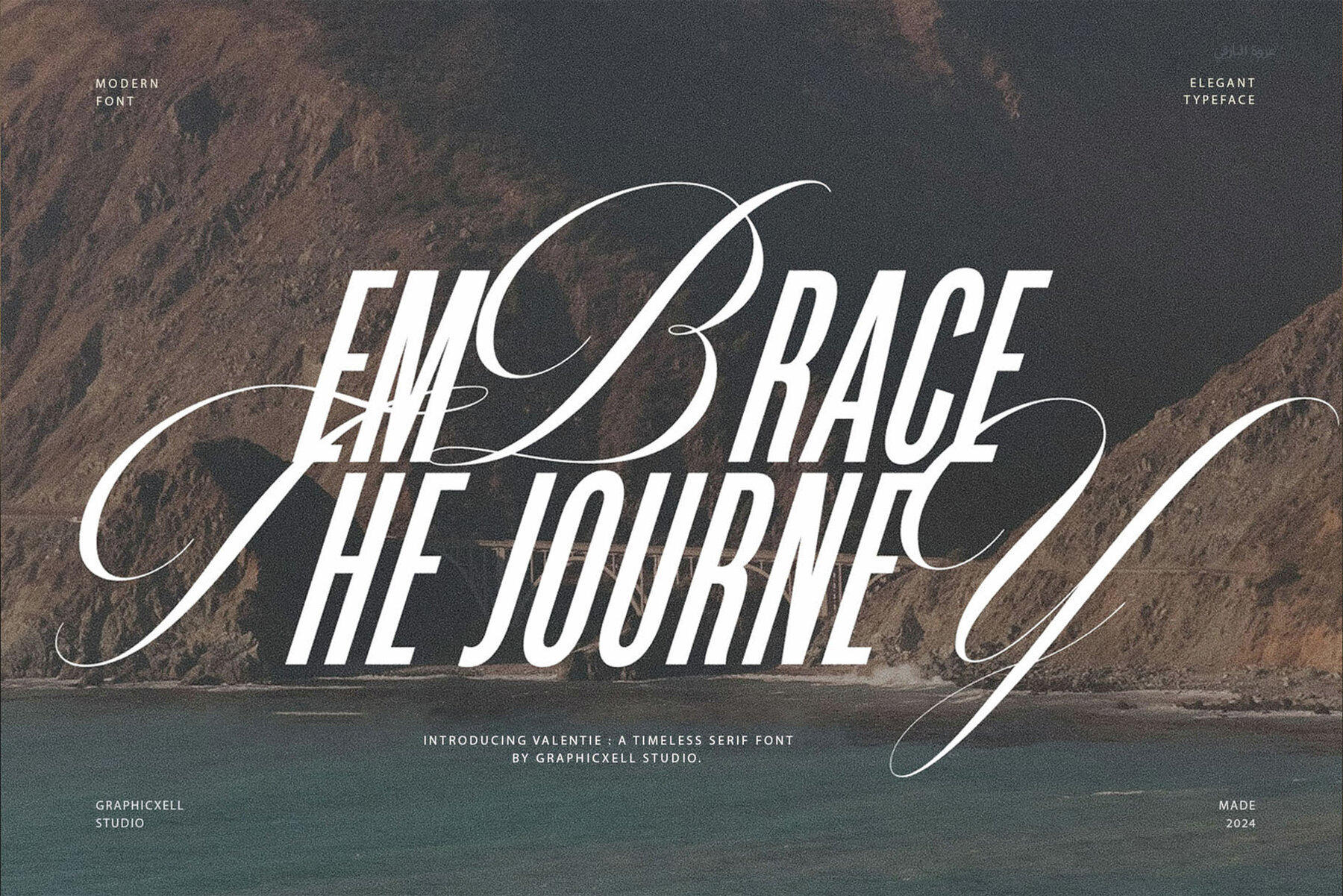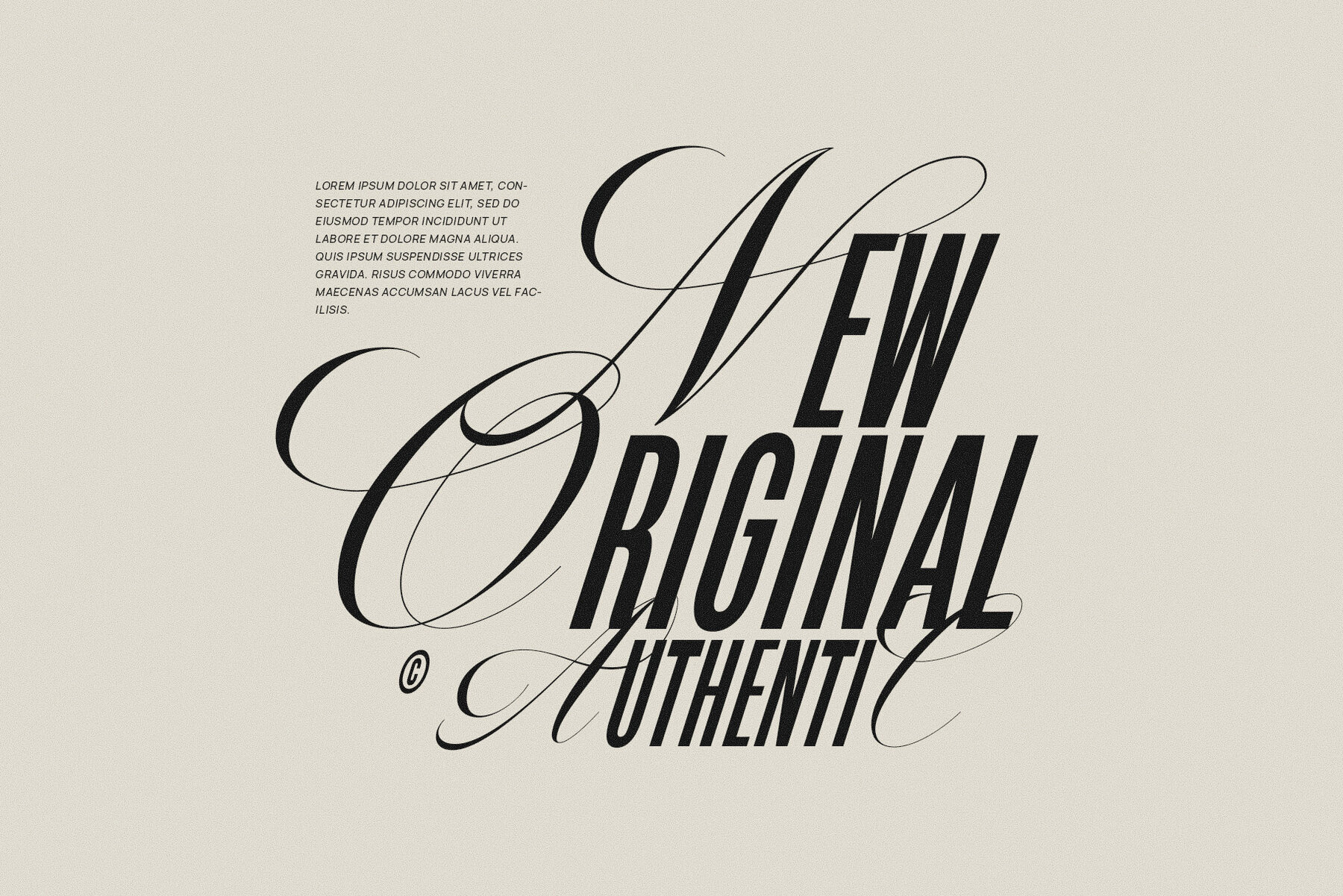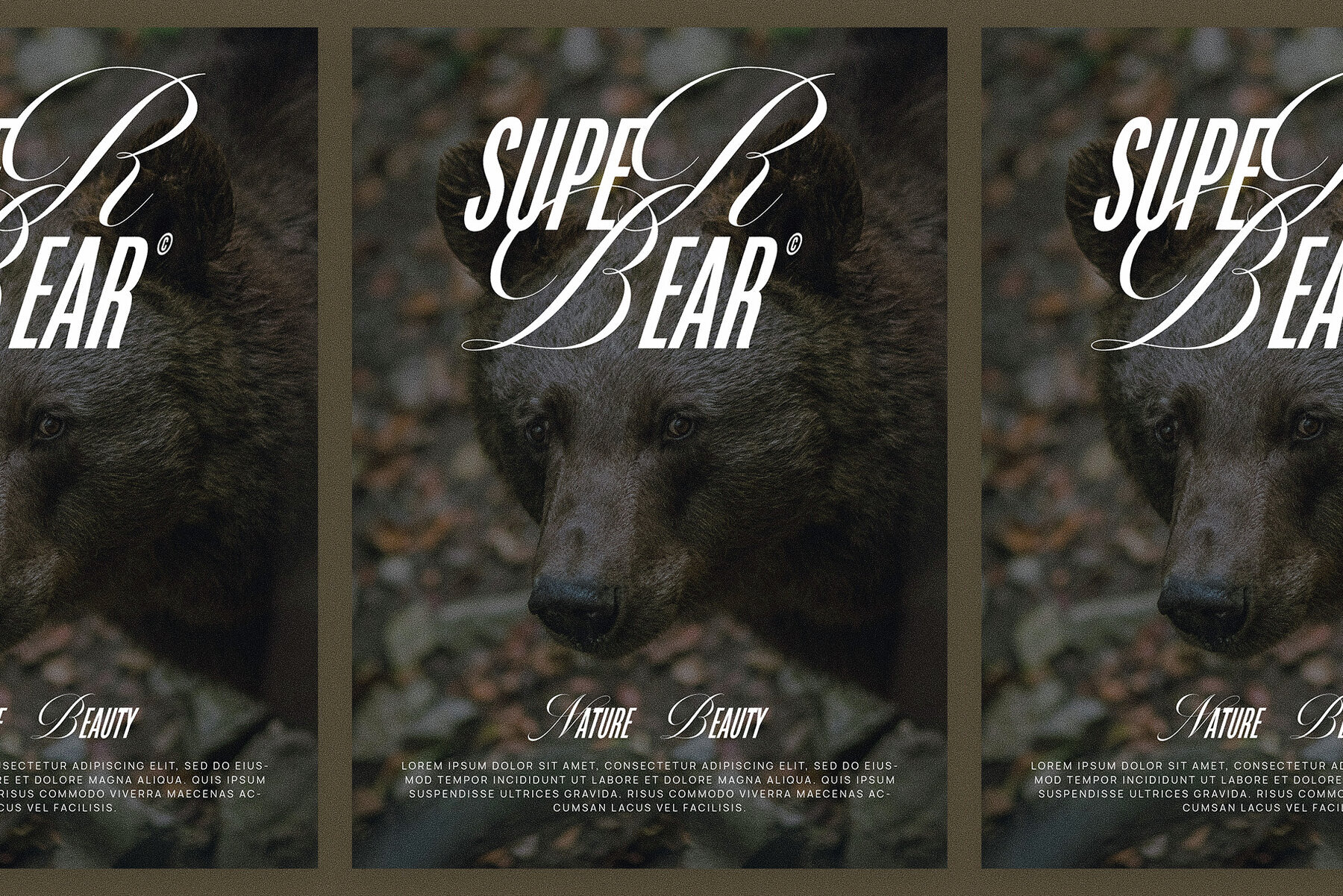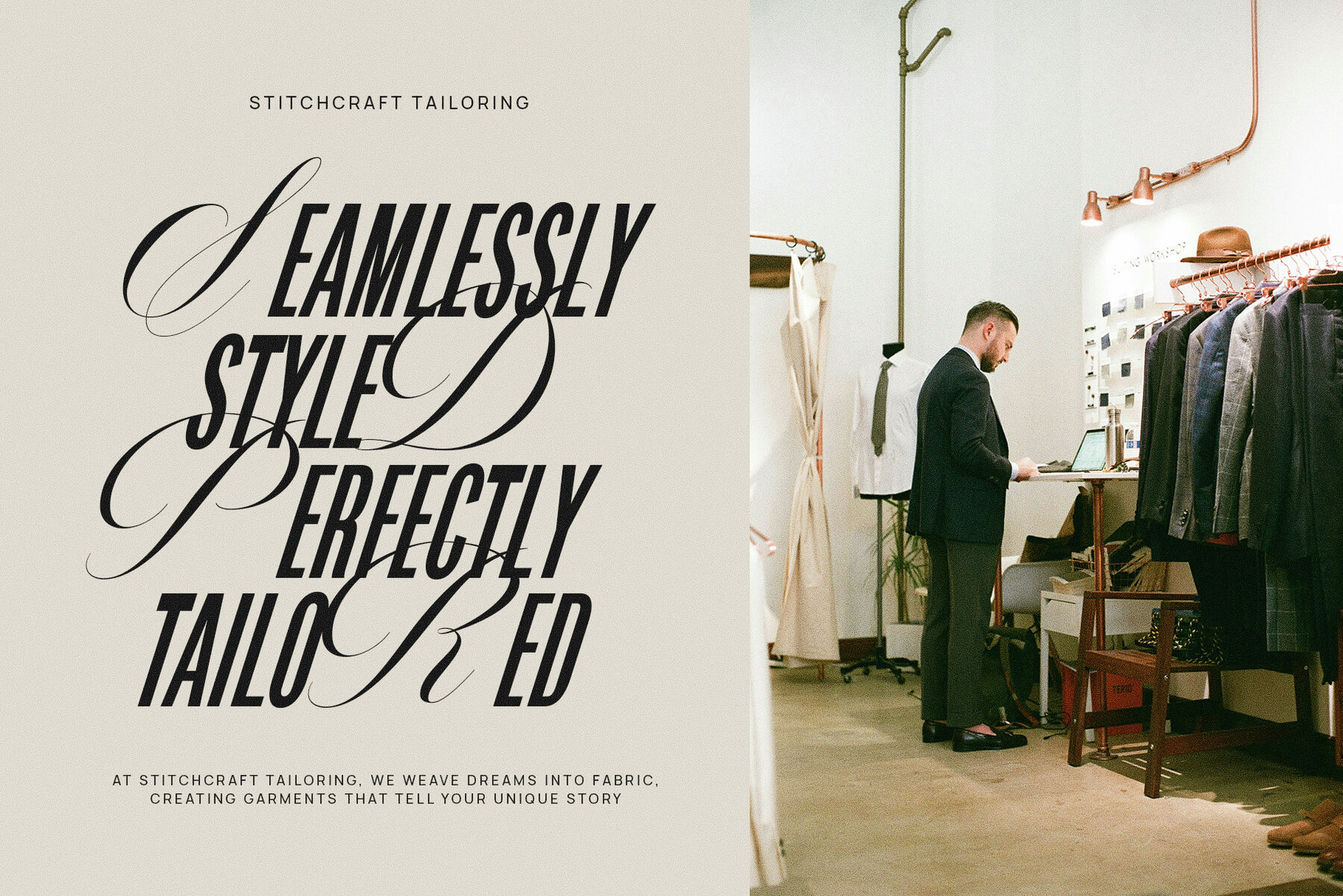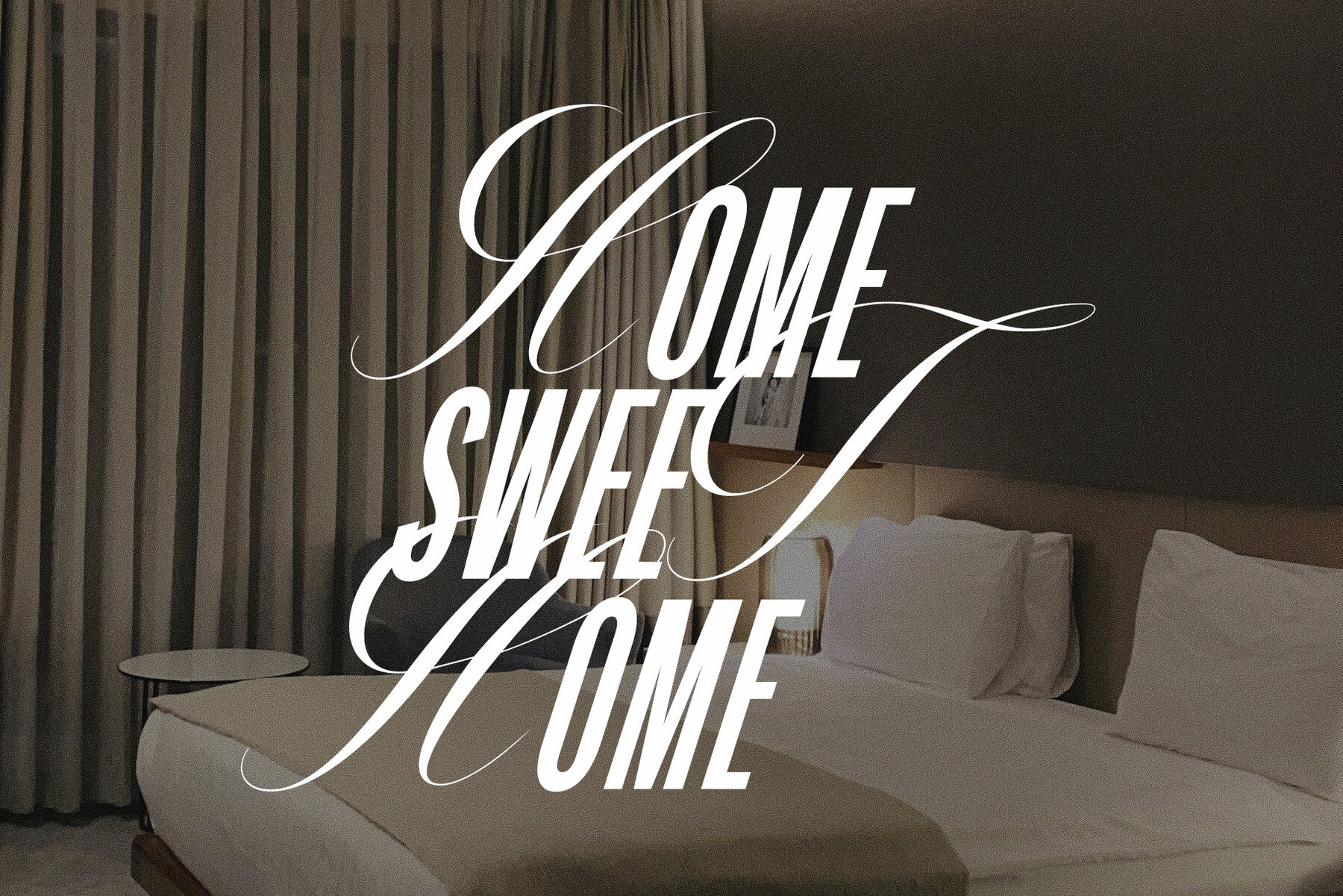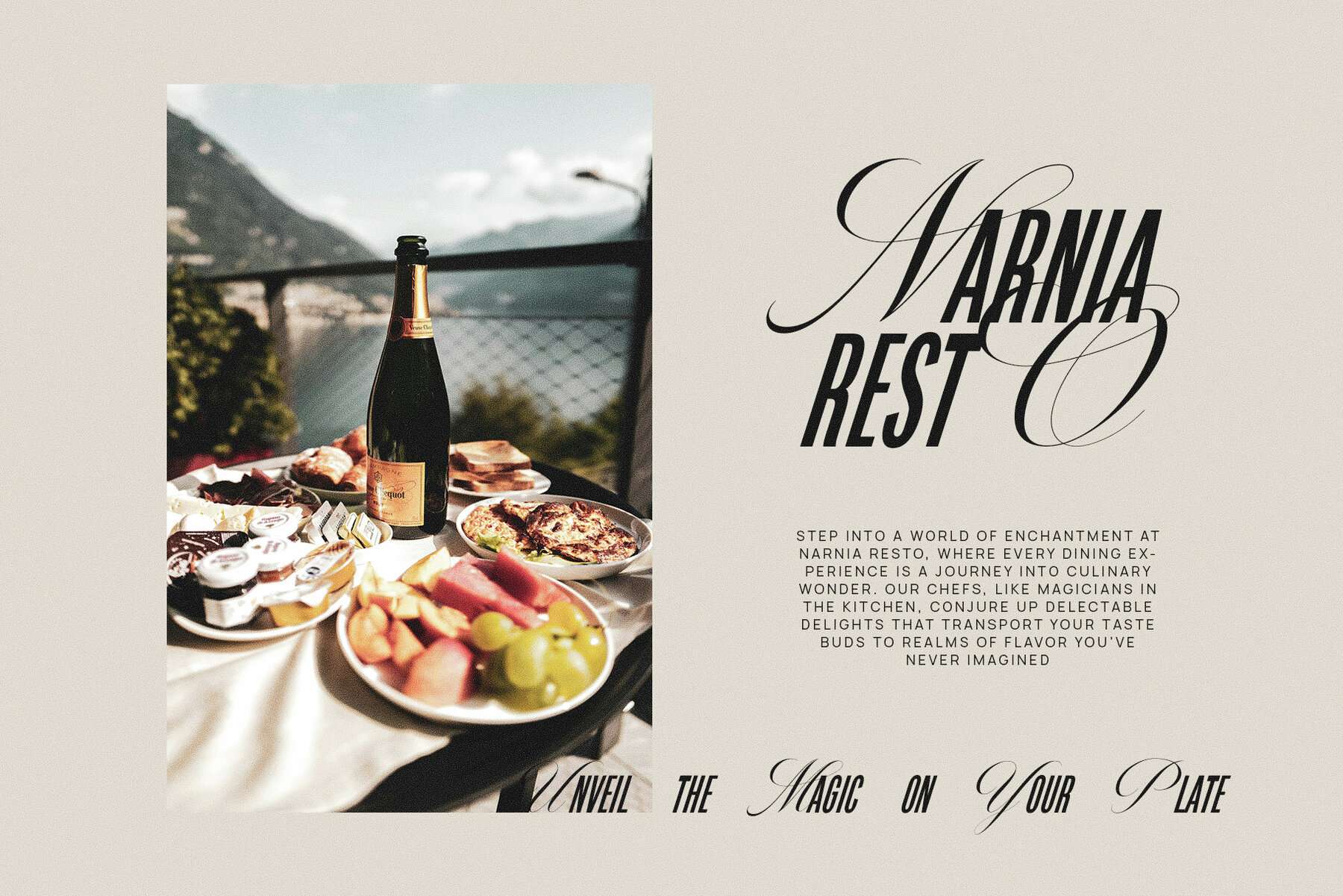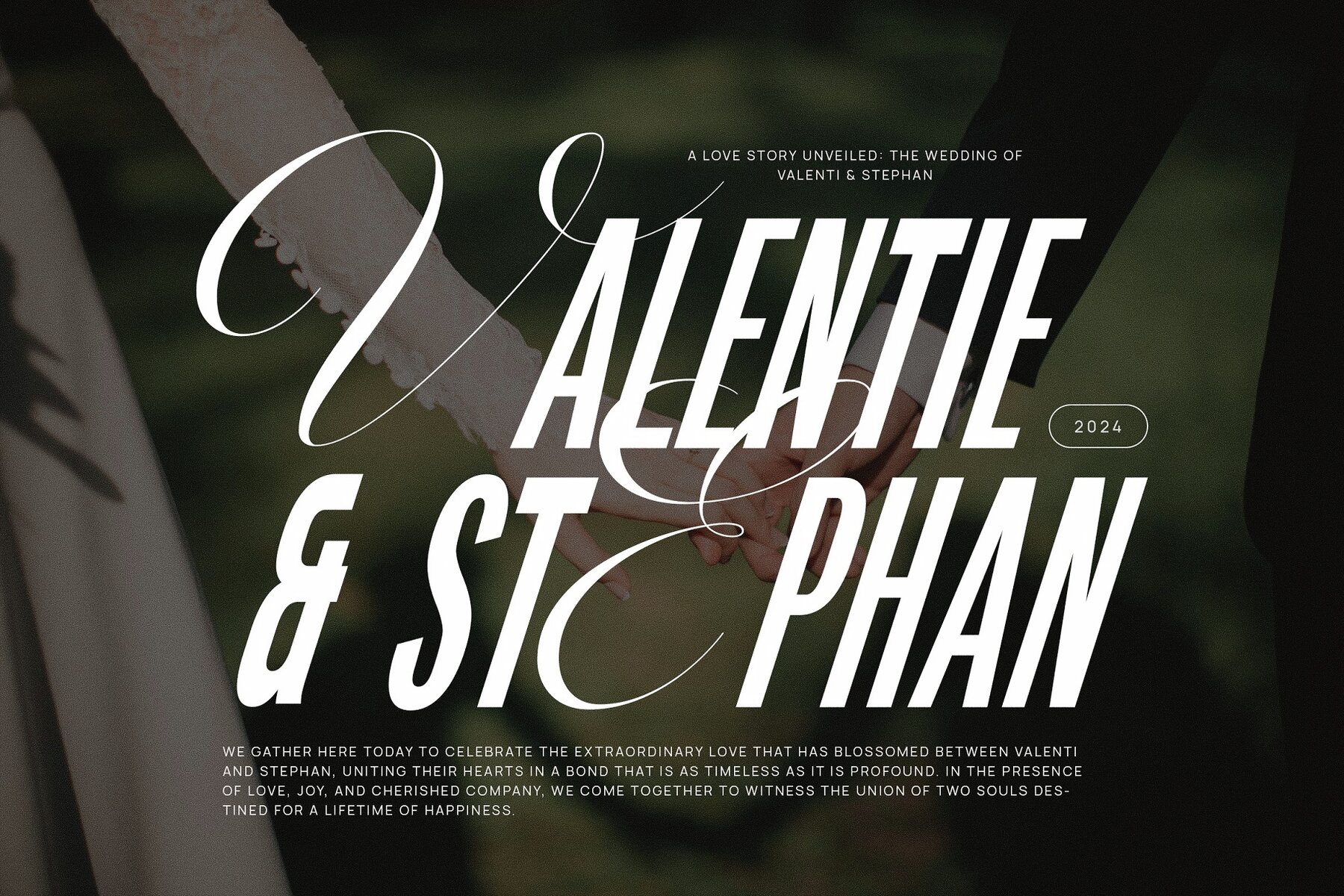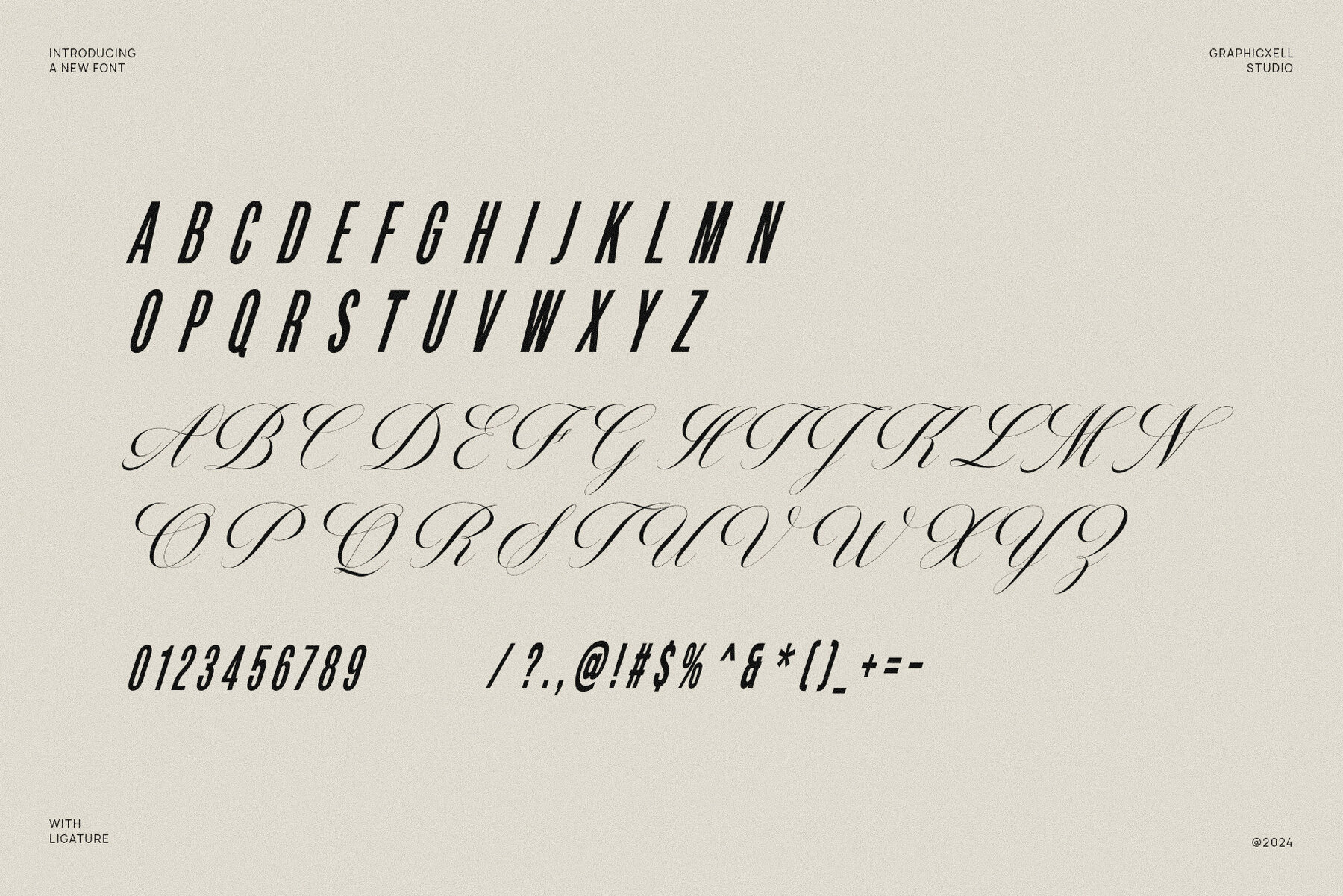
Embrace The Journey Font
Embrace The Journey
Embrace The Journey Calligraphy Font is a stunning and distinctive font that effortlessly blends elegance with modernity, making it a perfect choice for branding and logo designs.
This font starts with a classic ligature at the start of the word, followed by letters that are bold and italic. The letters are crafted with a unique flair, featuring swashes and curves that evoke a sense of movement and excitement.
Moreover, this font features a sophisticated serif style that adds a touch of class to any project, whether it's a logo, wedding invitation, or social media post.
Its versatility is showcased in its ability to enhance various design needs, including advertisements, product packaging, labels, photography, watermarks, invitations, stationery, and more.
What sets Embrace The Journey Calligraphy Font apart is its exceptional readability, ensuring that your message is conveyed with clarity and style.
Whether you're creating a brand identity or designing a product label, this font's high level of readability ensures that your audience can easily engage with your content.
Embrace The Journey Calligraphy Font is a versatile and reliable choice for designers seeking a font that combines elegance, modernity, and readability.
With its timeless appeal and versatility, this font is sure to elevate your designs and leave a lasting impression.